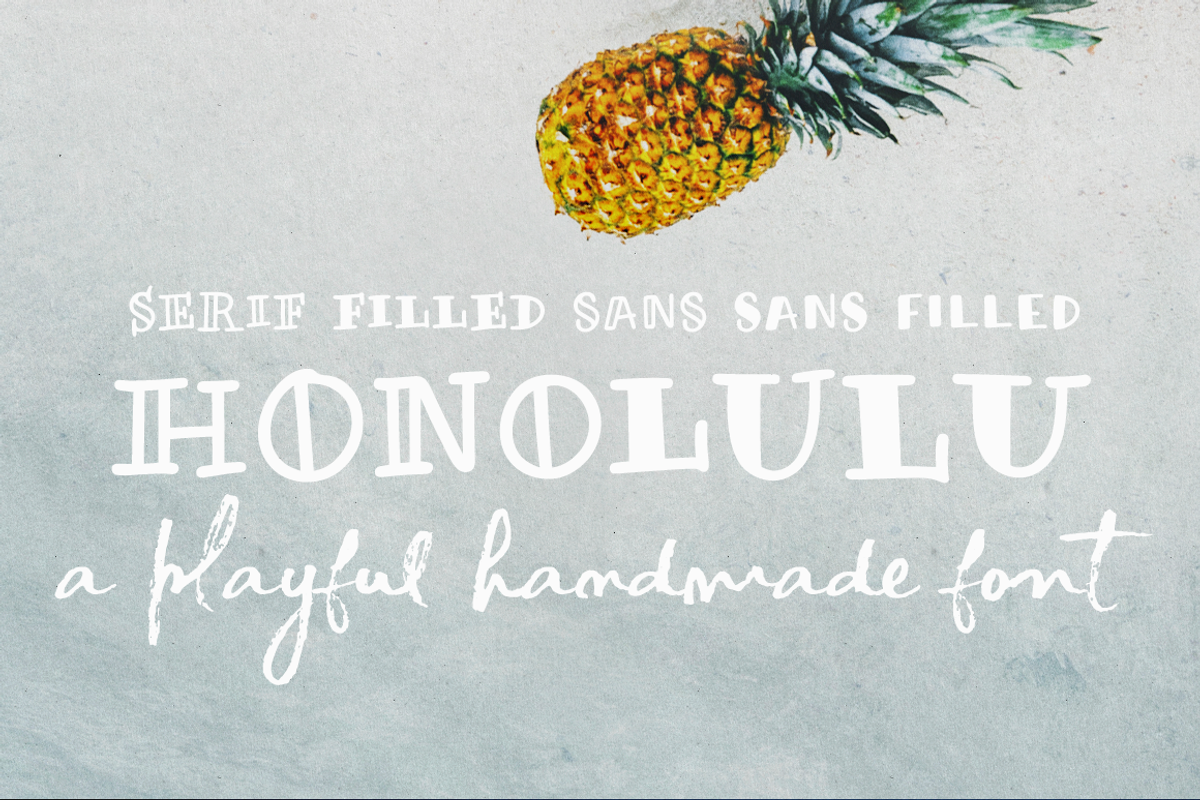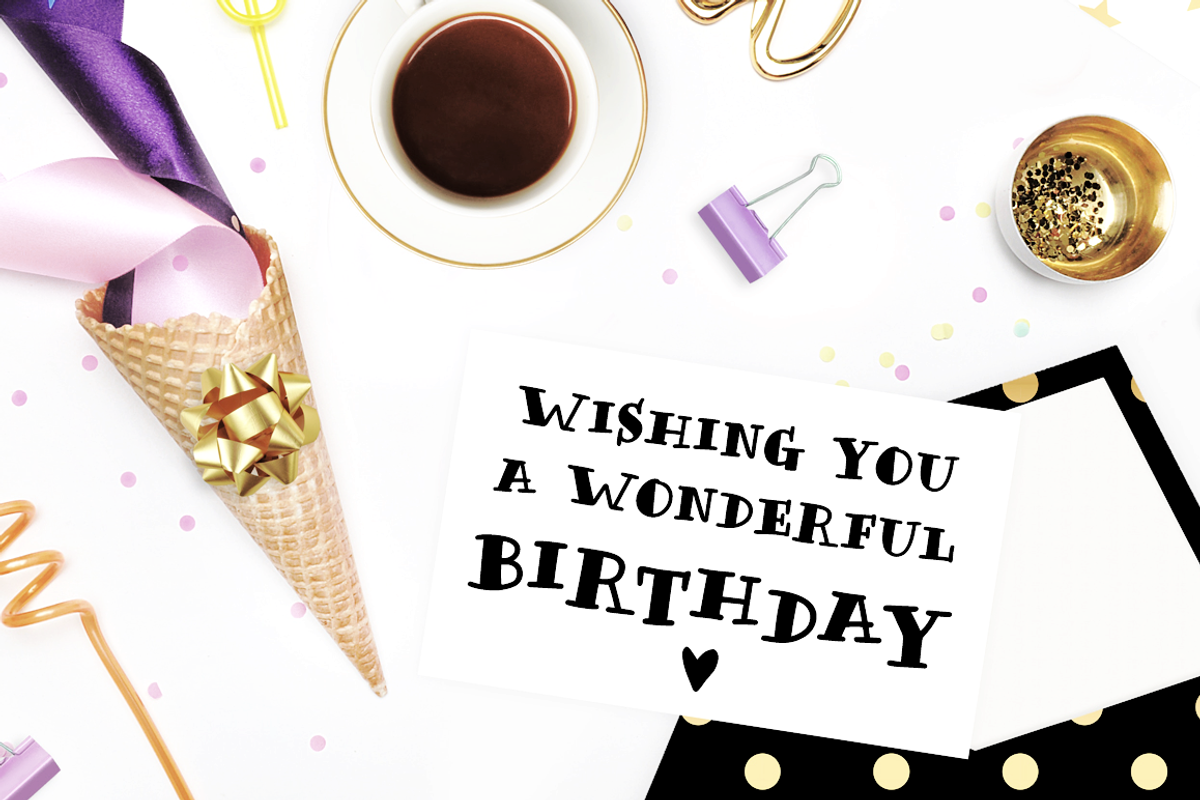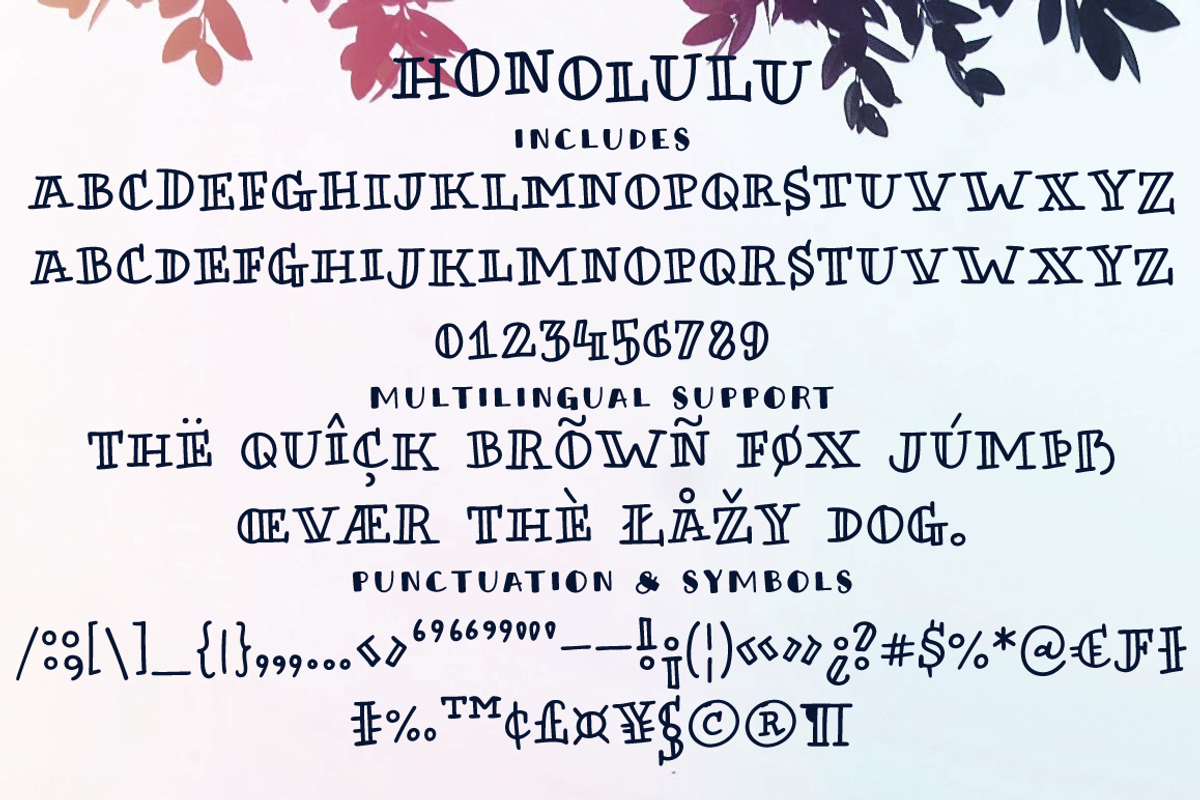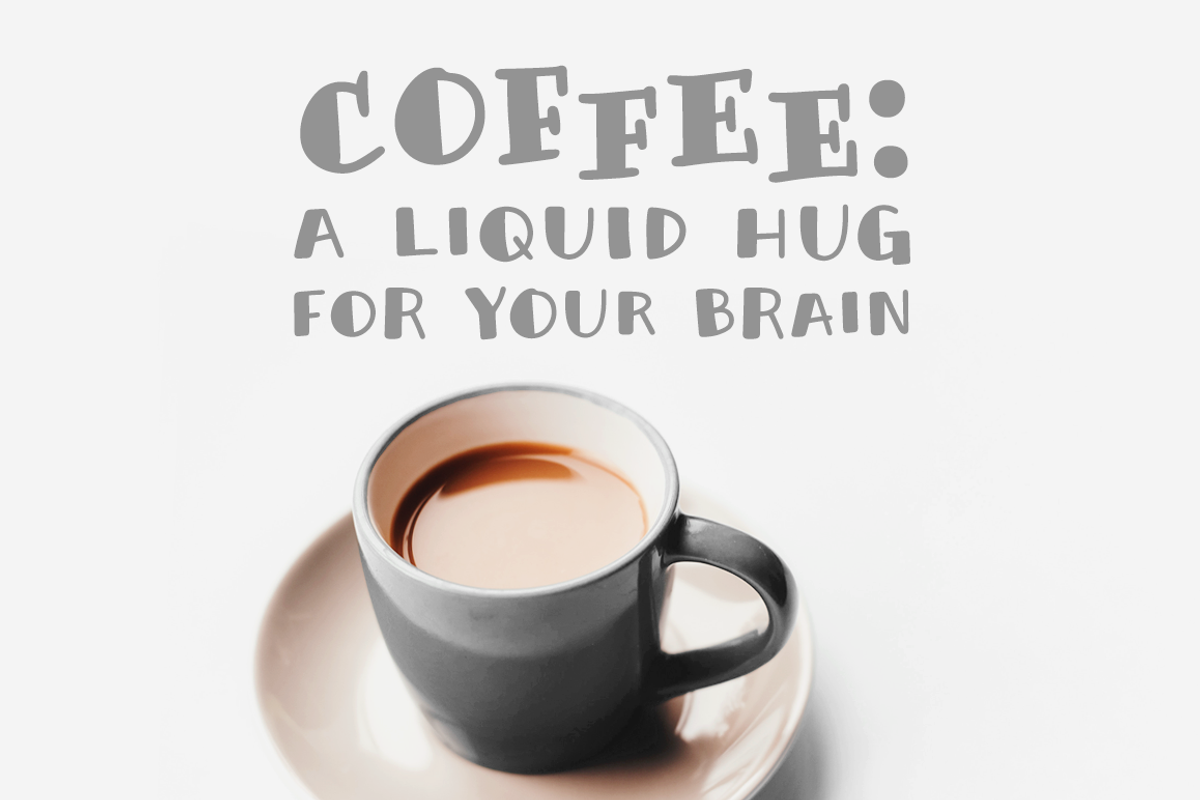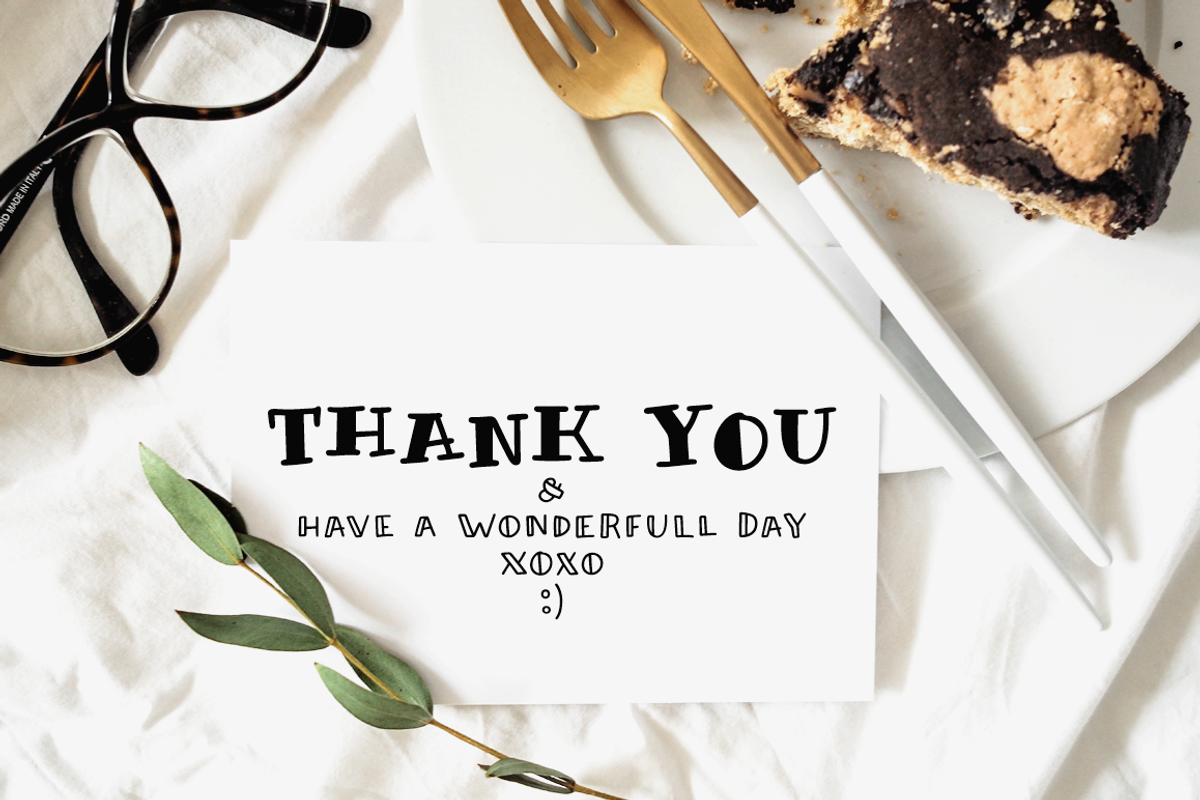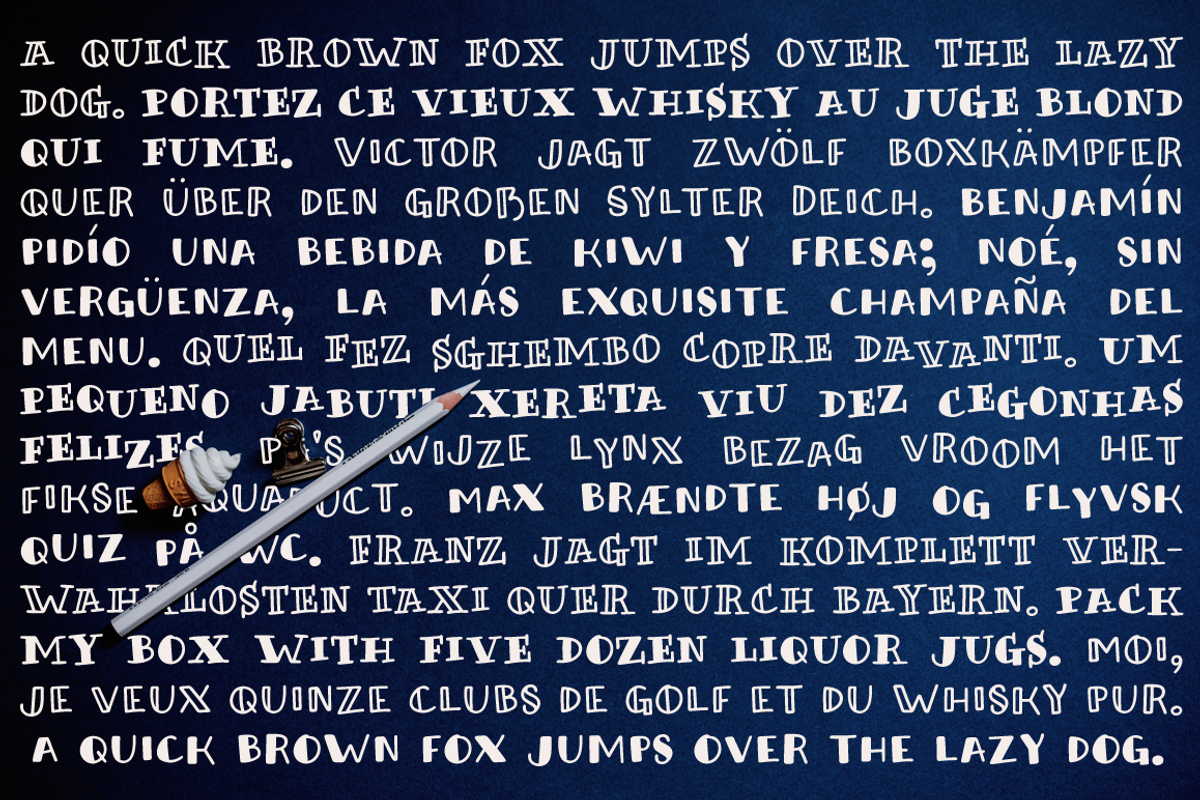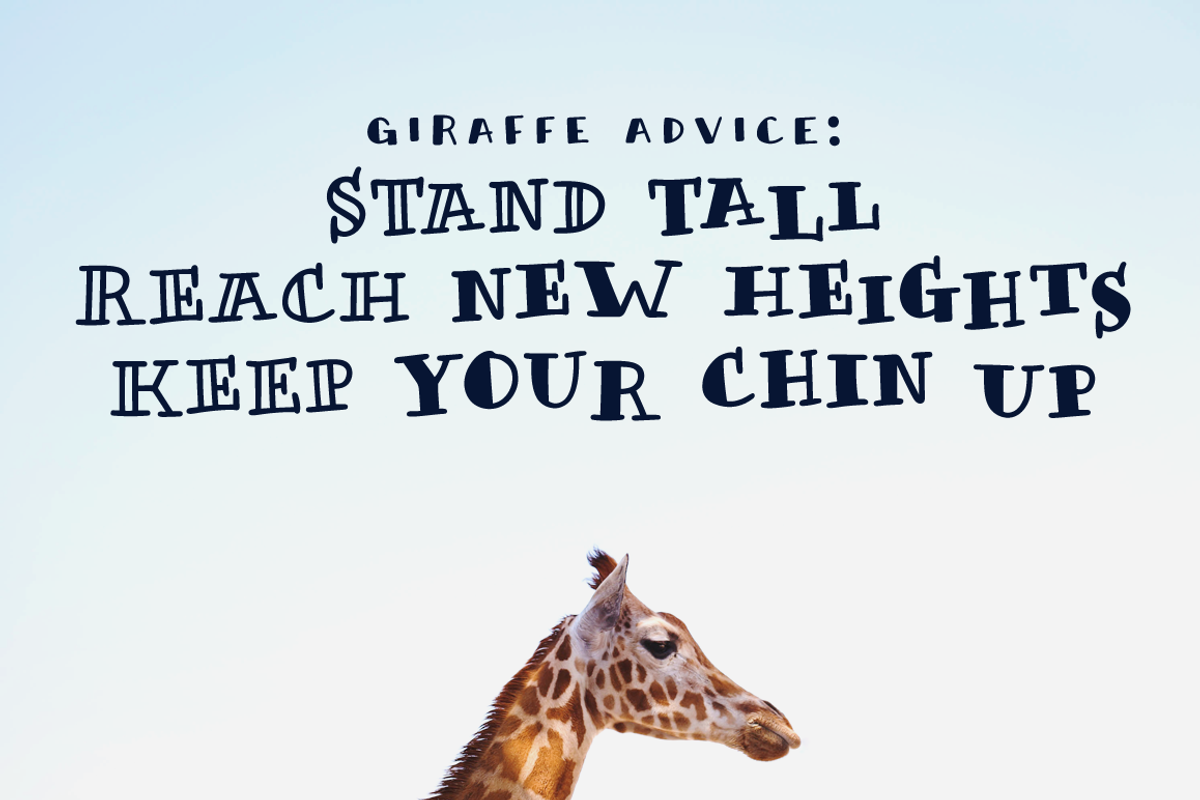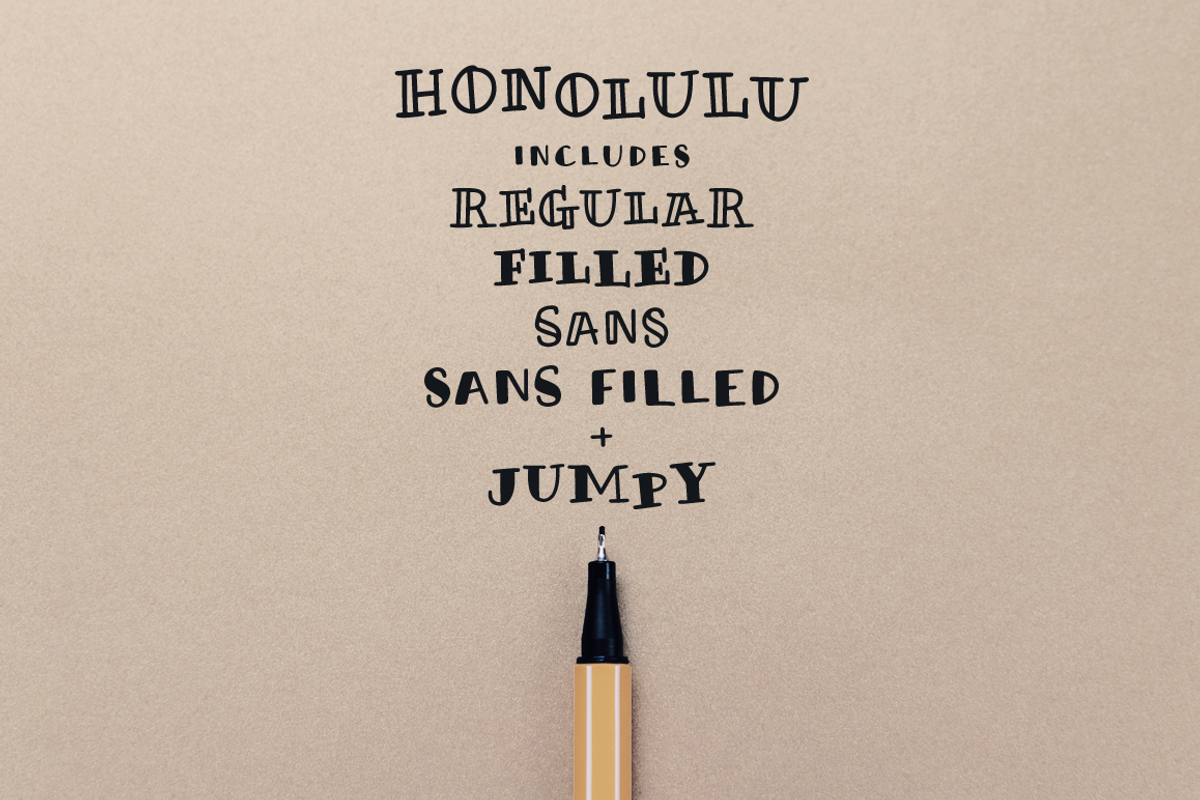
Honolulu handmade sans and serif font
Honolulu is a cute hand-drawn font with four variations:
Regular, filled, sans and sans filled;
Plus! jumpy versions of each font (accessed by activating contextual alternates).
Numbers and punctuation;
Multilingual support.
Fresh and perfect for the summer, in any design that needs a bold hand-drawn feel, such as postcards, notes and quotes, logos and branding.
- Each font includes: Two sets of caps; Numbers and punctuation; Multilingual support.
- jumpy versions of each font (accessed by activating contextual alternates).